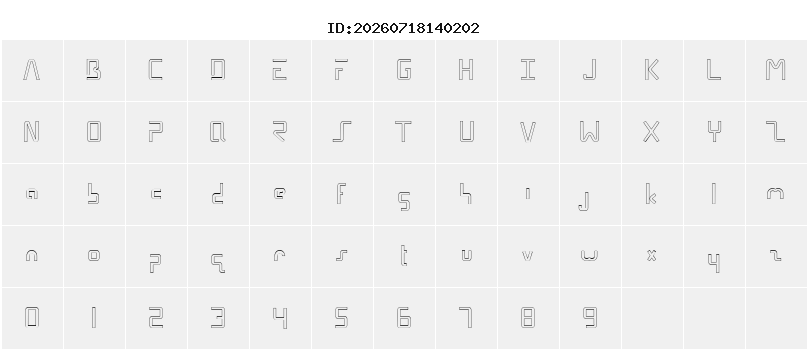
• Font Name: CK Video Game
• Font ID: CK Video Game
• Full Font Name: CK Video Game
About CK Video Game.ttf
CK Video Game.ttf is a modern, elegant sans-serif font designed for ultimate readability and visual harmony. Perfect for branding, headlines, web design, and print materials.